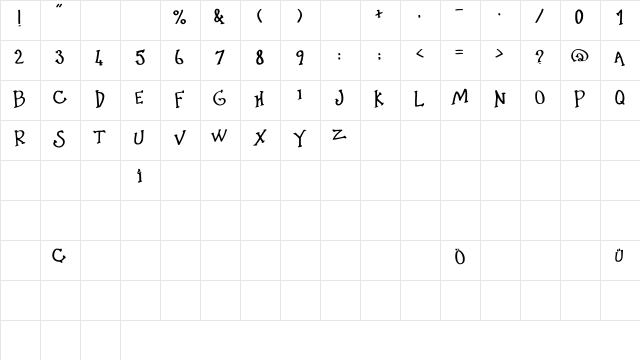
Little_Pink_Shit Medium
Design Context for Little_Pink_Shit Typeface
Little_Pink_Shit is a composed and adaptable typeface that performs quietly and consistently across a wide range of design contexts.